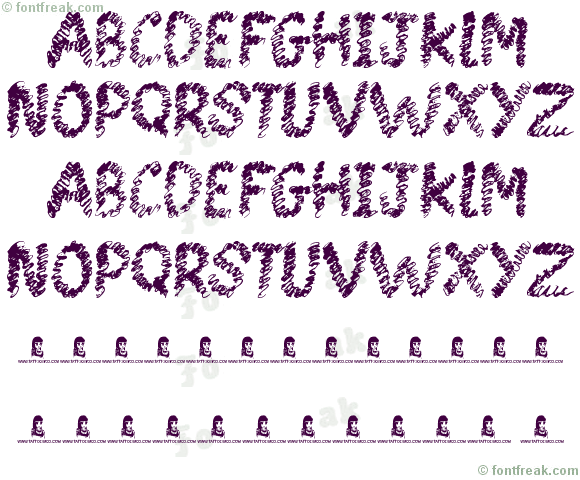
Spin Head
About Spin Head
Spin Head by Jonathan S. Harris is a unique decorative font that offers a playful and whimsical style, perfect for projects that require a touch of creativity. This font features a distinctive, hand-drawn aesthetic characterized by irregular, swirling strokes that create a sense of motion and energy. The varying stroke weights add a dynamic quality, while the lack of strict alignment provides an organic, freeform appearance. With its artistic flair, Spin Head stands out among other decorative fonts, making it an excellent choice for a variety of creative projects.
This font is particularly suited for use in wedding invitations, where its charming style can enhance a romantic theme. It can also be effectively used in movie posters, especially for indie films or those with a quirky narrative, as it captures attention and conveys a sense of fun. Additionally, restaurant menus can benefit from the inviting and casual vibe of Spin Head, making it ideal for cafes or bistros looking to create a relaxed atmosphere. Content creators will find this font useful for social media graphics, where it can help to convey personality and engage audiences.
What sets Spin Head apart is its ability to evoke emotion and personality through its distinctive design. The playful nature of this font invites creativity and exploration, making it a fantastic choice for anyone looking to make a bold statement. For those interested in enhancing their designs, the Spin Head font free download provides an excellent opportunity to experiment with this captivating typeface.